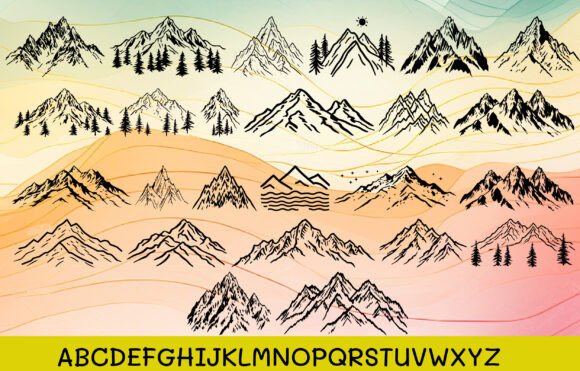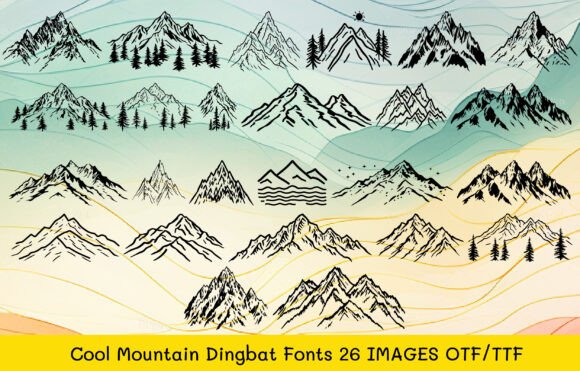
Cool Mountain Font: Elevate Your Designs with Nature-Inspired Creativity
Are you tired of using the same old fonts in your designs? Look no further than the Cool Mountain Dingbats Fonts! These unique and creative fonts bring a touch of the great outdoors to your projects, perfect for designers and crafters who want to add a rugged yet stylish touch to their work.
What are Cool Mountain Dingbats Fonts?
The Cool Mountain Dingbats Fonts feature 26 unique mountain-themed designs, each corresponding to a letter from A to Z. These fonts are specifically designed to bring a sense of adventure and exploration to your designs, making them perfect for outdoor-themed designs, adventure branding, scrapbooking, and more.
Key Features of Cool Mountain Dingbats Fonts
- 26 Unique Designs: Each letter from A to Z features a unique mountain-themed design, ensuring that your designs stand out from the crowd.
- Nature-Inspired Creativity: The fonts are inspired by the beauty of nature, bringing a touch of the outdoors to your designs.
- Perfect for Outdoor-Themed Designs: Whether you’re designing a logo for an outdoor gear company or creating a scrapbook page about a hiking trip, these fonts are perfect for adding a touch of adventure to your work.
- Rugged yet Stylish: The fonts have a rugged, outdoorsy feel that’s perfect for designs that need a bit of edge, but are still stylish and sophisticated.
Uses for Cool Mountain Dingbats Fonts
The Cool Mountain Dingbats Fonts are versatile and can be used in a variety of projects, including:
- Outdoor-Themed Designs: Use the fonts to create logos, brochures, and other marketing materials for outdoor gear companies, hiking trails, and national parks.
- Adventure Branding: Add a touch of adventure to your brand with these unique fonts, perfect for companies that offer adventure travel, outdoor education, or extreme sports.
- Scrapbooking: Use the fonts to create unique and personalized scrapbook pages about outdoor adventures, travel, and nature.
- Graphic Design: The fonts can be used in a variety of graphic design projects, including posters, flyers, and social media graphics.
Tips for Using Cool Mountain Dingbats Fonts
Here are a few tips for getting the most out of the Cool Mountain Dingbats Fonts:
- Experiment with Different Colors: The fonts look great in a variety of colors, from earthy tones like green and brown to bold colors like blue and red.
- Use with Other Fonts: Combine the Cool Mountain Dingbats Fonts with other fonts to create a unique and visually interesting design.
- Play with Size and Style: Experiment with different font sizes and styles to add depth and interest to your design.
The Cool Mountain Dingbats Fonts are a unique and creative way to add a touch of nature-inspired creativity to your designs. With 26 unique mountain-themed designs, these fonts are perfect for outdoor-themed designs, adventure branding, scrapbooking, and more. Whether you’re a designer, crafter, or DIY enthusiast, these fonts are sure to elevate your projects and add a rugged yet stylish touch to your work.